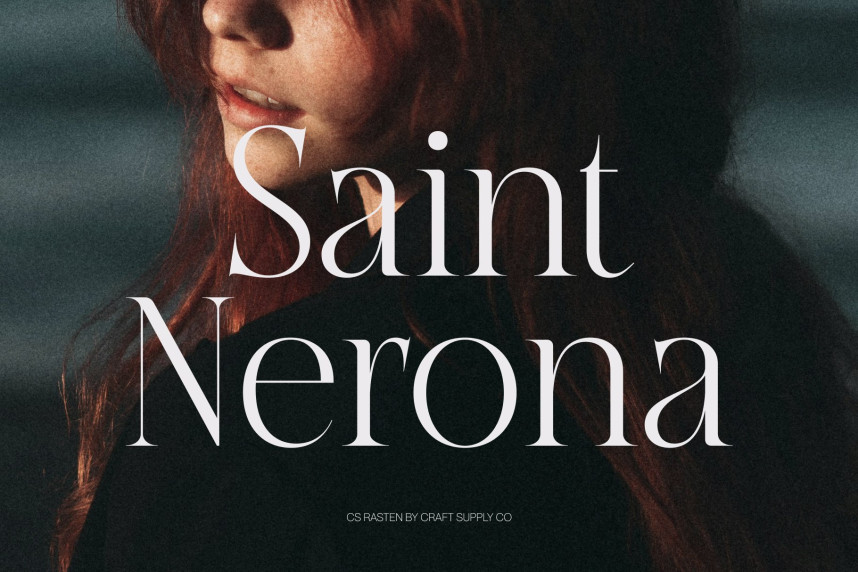
CS Rasten Font
CS Rasten Font – Modern Serif Font: Where Elegant Proportions Meet Professional Sophistication
Slim Proportions and Elongated Serifs
This is a modern serif font designed with slim proportions and graceful elongated serifs that create a sophisticated and polished visual presence. Its refined structure conveys elegance, professionalism, and contemporary luxury, making every word appear poised and distinguished. The carefully crafted letterforms strike a perfect balance between delicacy and authority, resulting in a timeless and versatile typographic style.